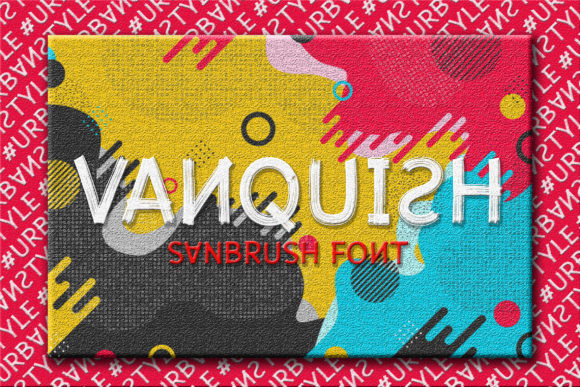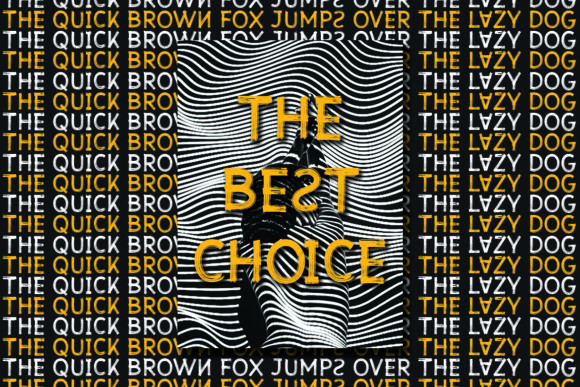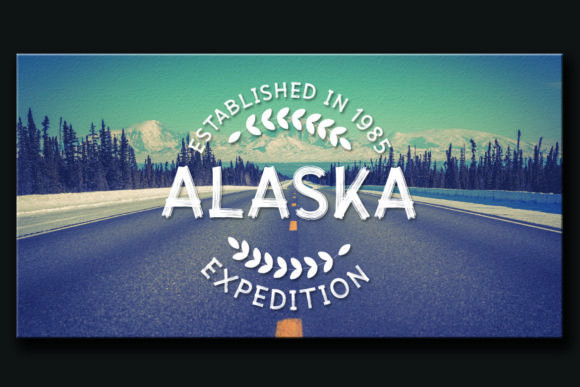
Vanquish Font
Vanquish infuses classic sans serif style with an authentic hand brush look. Get inspired by its perfect blend of simplicity and elegance.